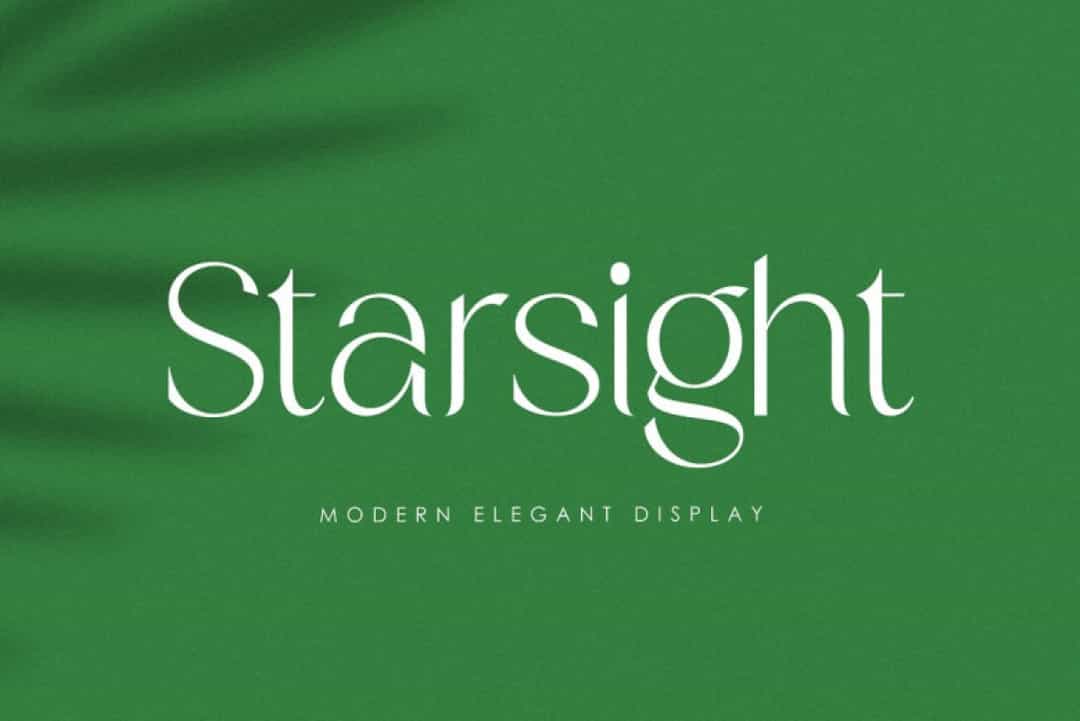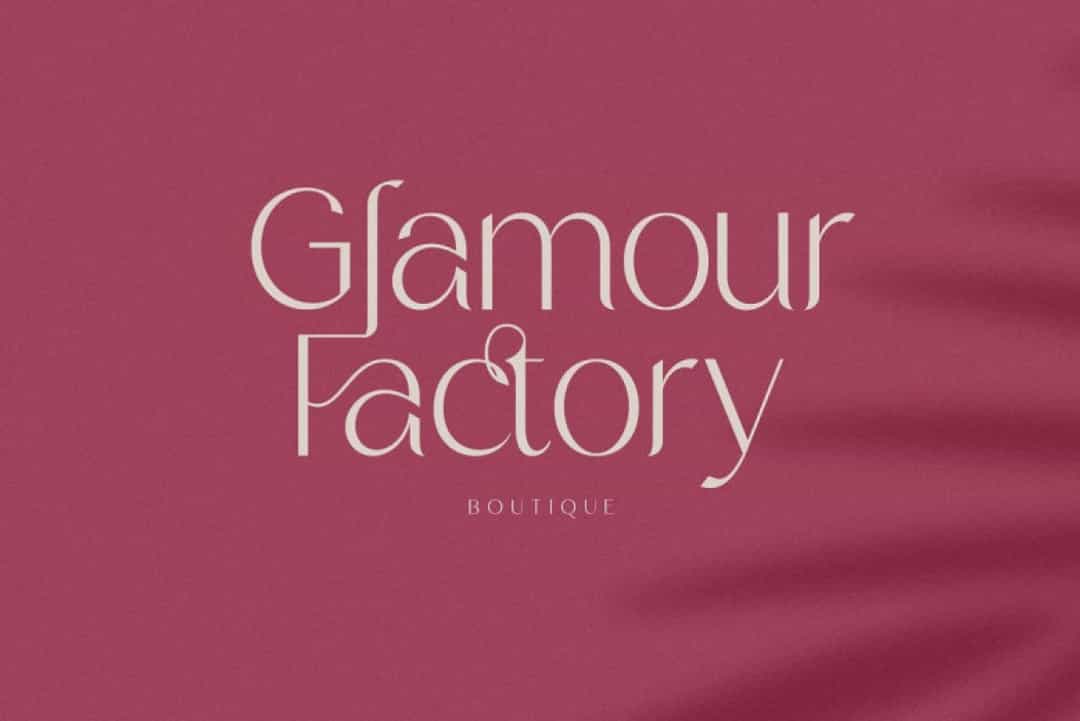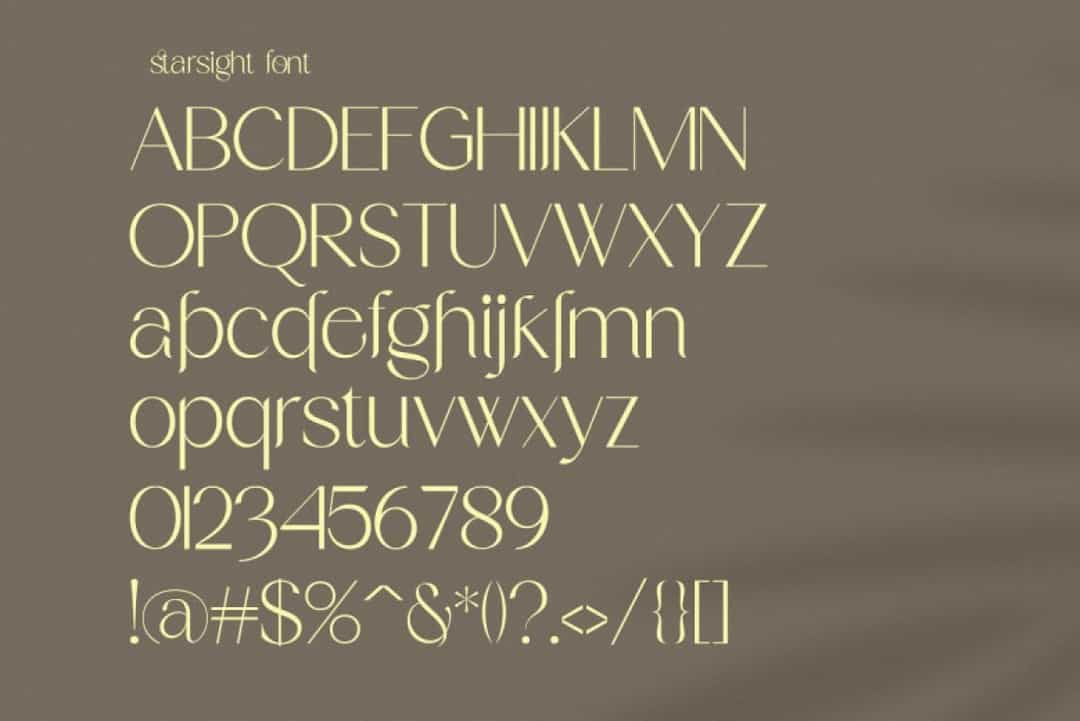
Starsight can be best described as an elegant and modern multilingual display font without serifs, featuring ligatures, alternations and strokes to complete its elegant appearance. Thanks to its smooth curves and modern features, this font character can be utilized in various designs such as greeting cards, wedding invitations, magazines websites etc.